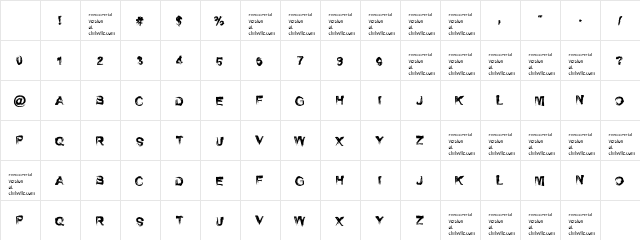
Complete Self Righteousness Regular glyph index. Displaying only characters natively supported by Self Righteousness Regular font.
Self Righteousness is a composed and adaptable typeface that performs quietly and consistently across a wide range of design contexts.